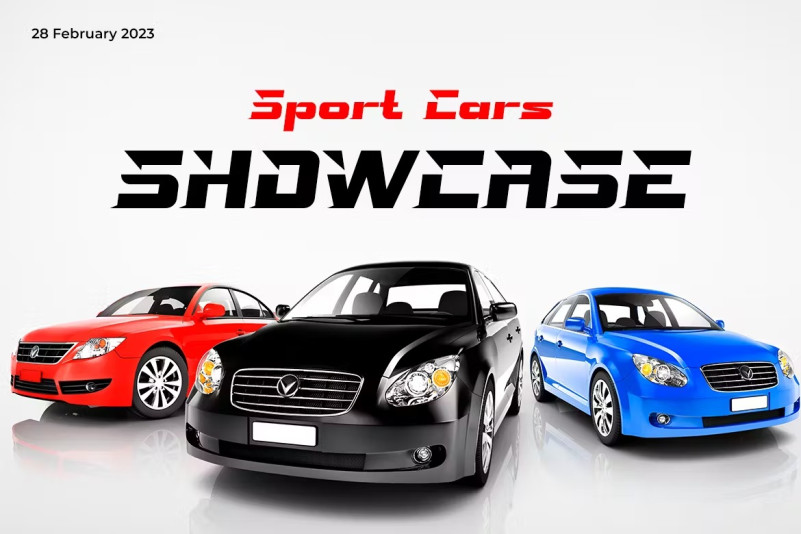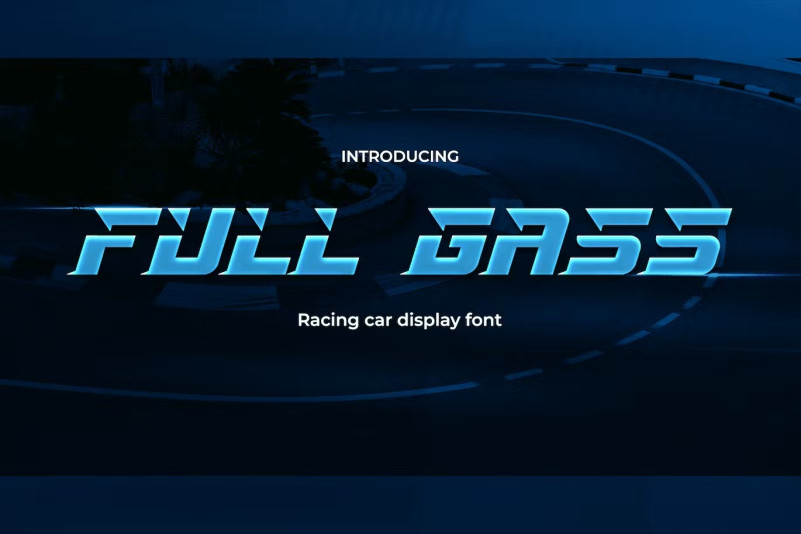
Full Gass Font
Full Gass Font , the ultimate racing car display font that will take your designs to the next level. With its bold, powerful and dynamic design, this font is perfect for all your racing-themed projects. Whether you’re creating a logo for a car dealership, designing a poster for a racing event, or adding text to a YouTube video, Full Gass is the font that will make your designs stand out.
Designed with the racing world in mind, Full Gass is a modern and stylish font that captures the essence of speed and adrenaline. Its sharp edges and angular shapes are reminiscent of a sleek and aerodynamic racecar, while its bold lines and thick strokes give it a powerful and dynamic appearance. With Full Gass, your designs will leave a lasting impression on your audience, making them feel the thrill and excitement of the racing world.
The versatility of Full Gass makes it a great choice for a variety of projects. Its bold and attention-grabbing design makes it perfect for use on posters, banners, and billboards, while its clean and modern look makes it a great choice for branding materials such as logos, business cards, and website headers. Full Gass is also an excellent choice for YouTube videos and social media graphics, allowing you to create engaging content that will keep your audience coming back for more.
In conclusion, Full Gass is a must-have font for anyone looking to add a touch of speed and excitement to their designs. Its bold and dynamic design, combined with its versatility and flexibility, make it the perfect choice for all your racing-themed projects. So rev up your engines and get ready to take your designs to the next level with Full Gass!